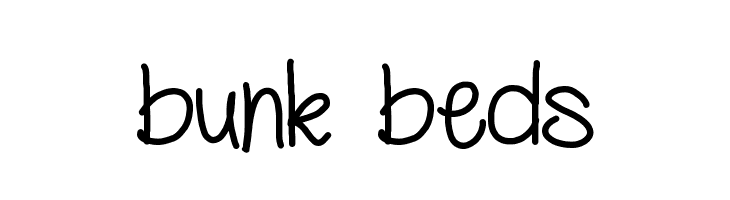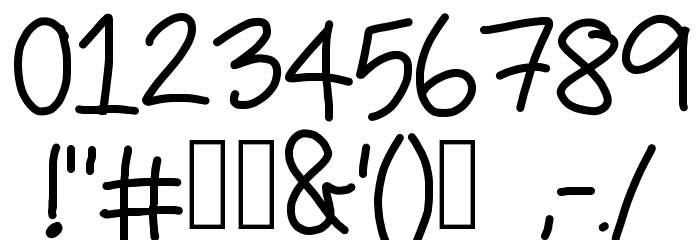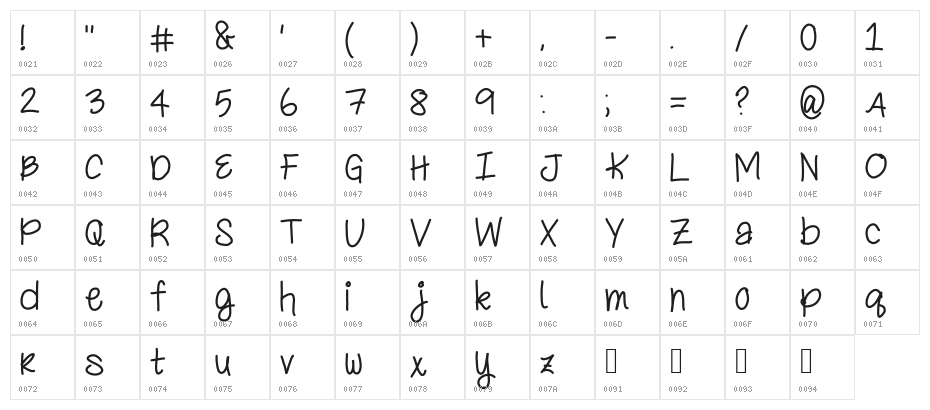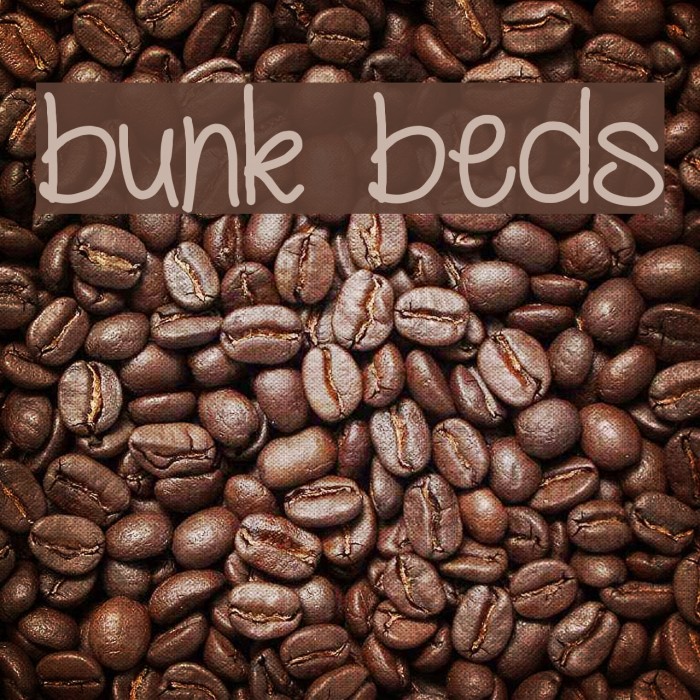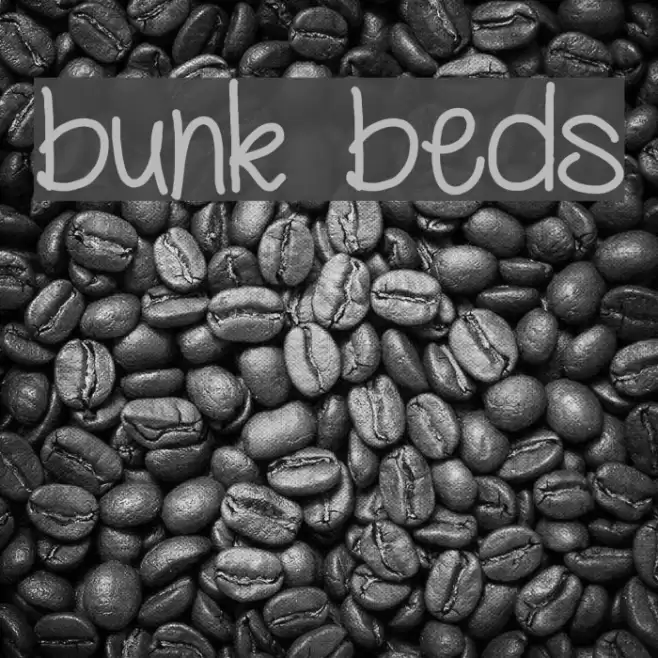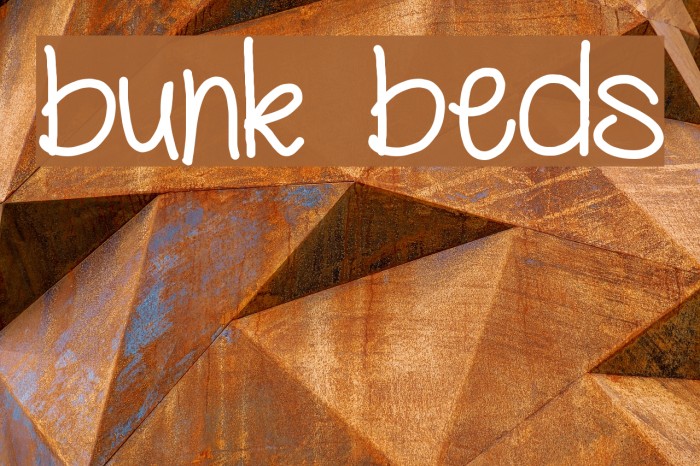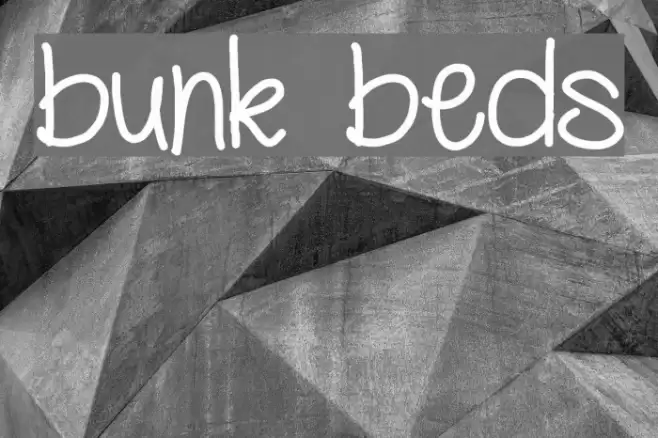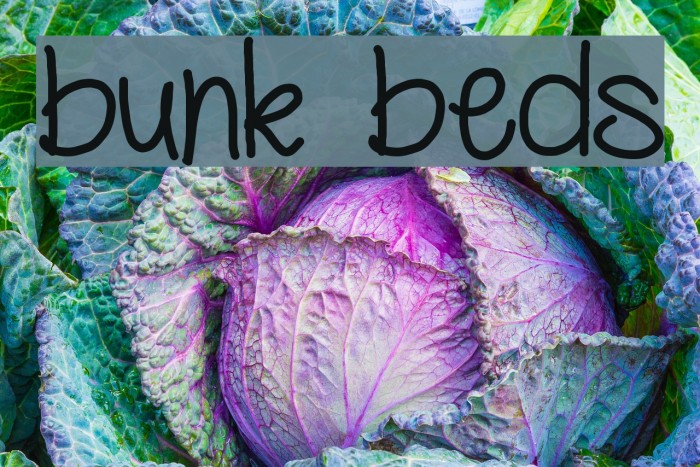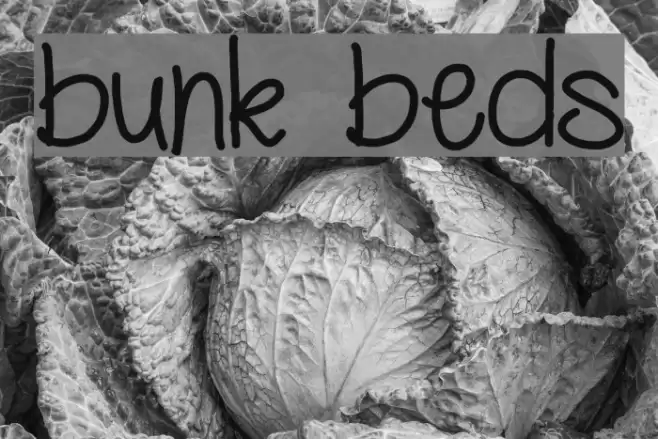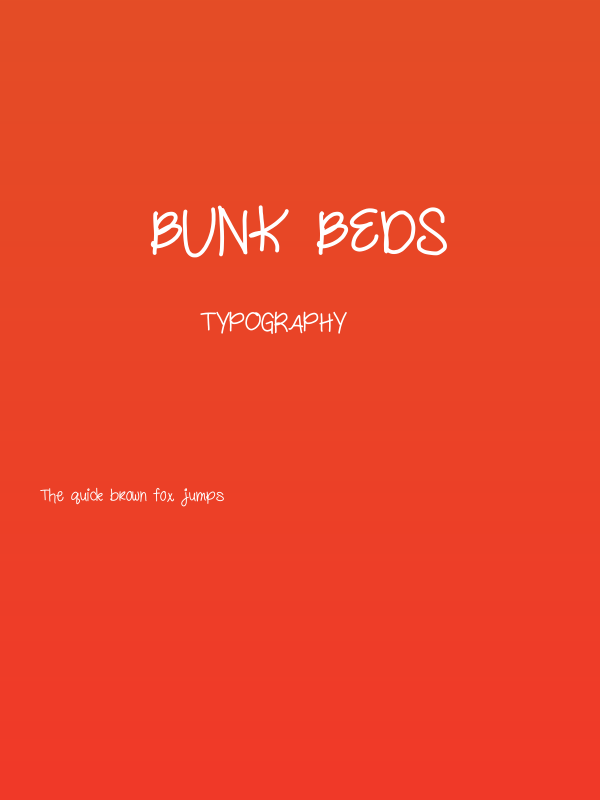
bunk beds Font
bunk beds Description
This font features a playful and informal handwritten style, characterized by its irregular and slightly whimsical letterforms. The strokes are smooth and rounded, giving it a friendly and approachable appearance. The uppercase letters maintain a consistent height, while the lowercase letters have a more varied baseline, adding to the casual feel. Numbers and special characters are designed with the same playful touch, ensuring a cohesive look across all characters. This font is ideal for projects that require a personal and informal tone.
| Proposed Projects | Great for children's books, greeting cards, casual invitations, and playful branding. |